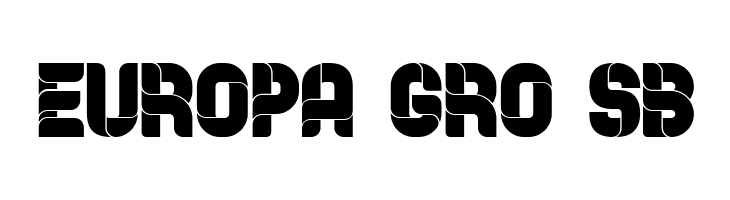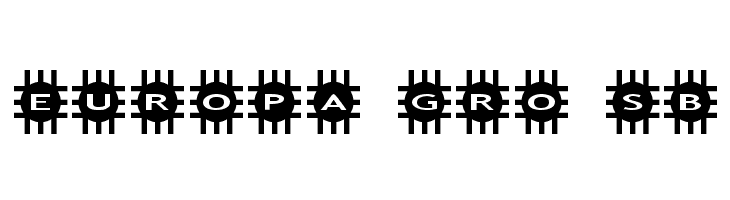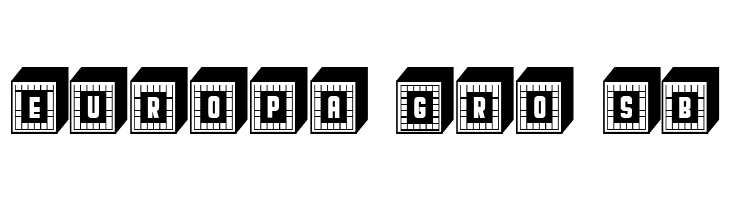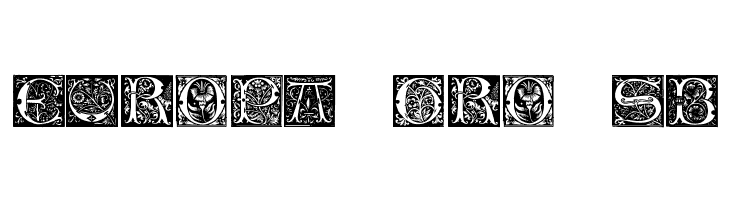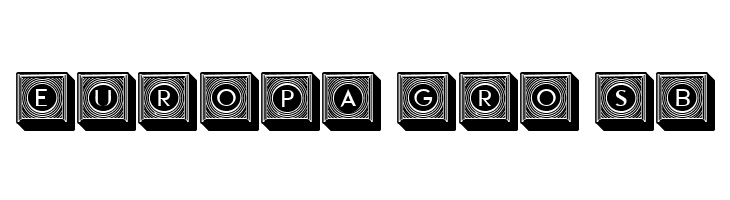
A bold, circular font with geometric lines and a modern art deco flair.
A decorative monogram font with bold, uppercase letters enclosed in ovals.
A bold, geometric font with a modern, segmented design.
A playful, rounded font with cat icons, perfect for creative and informal projects.
A bold, decorative font with a grid-like overlay on each character.
A bold, geometric font with 3D block effects and sans-serif style.
An ornate, decorative font with intricate floral patterns in each letter.
A sleek, modern, extra-light italic font with a narrow, streamlined design.
A playful font with characters inside cartoon penguin silhouettes.
A bold, 3D geometric font with uppercase letters in cube-like structures.